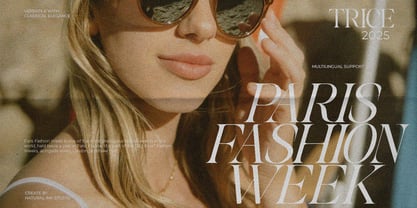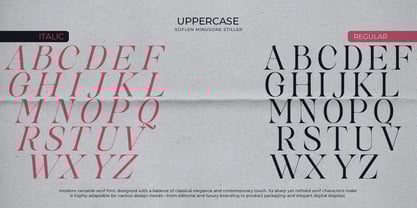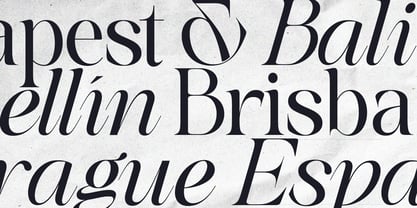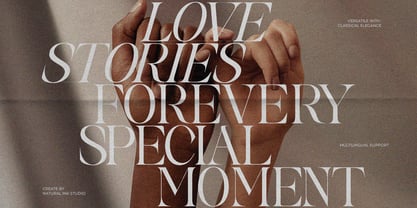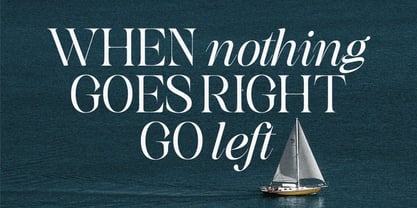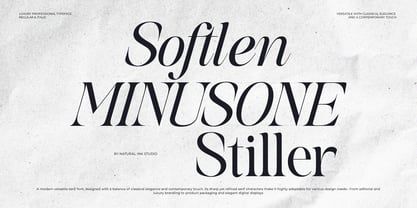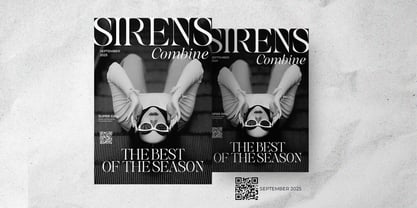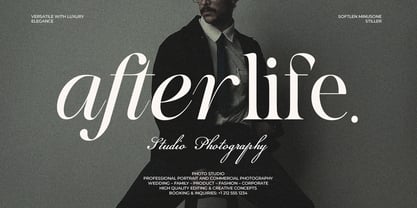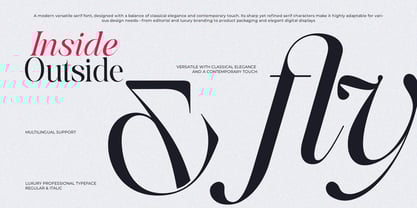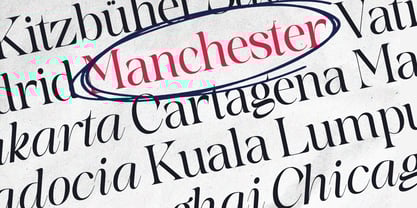
Softlen Minusone Stiller
by Natural Ink
The Softlen Minusone Stiller Font Family was designed by Arif Gunawan and published by Natural Ink. Softlen Minusone Stiller contains 2 styles and family package options.
Softlen Minusone Stiller is a versatile serif type crafted with a perfect balance of elegance and professionalism. Its refined letterforms blend timeless editorial charm with a contemporary touch, making it suitable for both print and digital media. The sharp yet graceful serifs convey authority and sophistication, while the smooth curves add warmth and readability. Ideal for magazines, branding, and corporate communication. Softlen Minusone Stiller adapts effortlessly across layouts—whether as striking headlines or refined body text—providing designers with a reliable choice for projects that demand both style and substance. Softlen Minusone Stiller also comes with several unique alternates and ligatures, as well as multilingual support features that can make your project more attractive. If you have any questions please don't hesitate to drop me a message.. Thank You!
Softlen Minusone Stiller